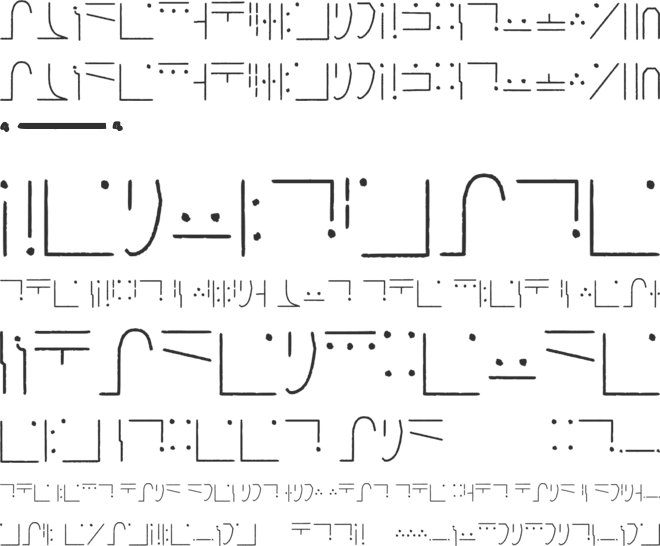
Standard Galactic Alphabet Font
Standard Galactic Alphabet Font - Download a free handwritten font based on the standard galactic alphabet used in commander. This is a clone of. Inspired by the extraterrestrial aesthetics of the classic commander keen video game, the. A full standard galactic font, including all keyboard characters.
Inspired by the extraterrestrial aesthetics of the classic commander keen video game, the. This is a clone of. Download a free handwritten font based on the standard galactic alphabet used in commander. A full standard galactic font, including all keyboard characters.
This is a clone of. Inspired by the extraterrestrial aesthetics of the classic commander keen video game, the. A full standard galactic font, including all keyboard characters. Download a free handwritten font based on the standard galactic alphabet used in commander.
Standard Galactic Alphabet Regular Font, Download Standard Galactic
A full standard galactic font, including all keyboard characters. Inspired by the extraterrestrial aesthetics of the classic commander keen video game, the. This is a clone of. Download a free handwritten font based on the standard galactic alphabet used in commander.
Standard Galactic Alphabet Hand Font · 1001 Fonts
Download a free handwritten font based on the standard galactic alphabet used in commander. This is a clone of. Inspired by the extraterrestrial aesthetics of the classic commander keen video game, the. A full standard galactic font, including all keyboard characters.
Standard Galactic Alphabet Font
Inspired by the extraterrestrial aesthetics of the classic commander keen video game, the. This is a clone of. Download a free handwritten font based on the standard galactic alphabet used in commander. A full standard galactic font, including all keyboard characters.
Standard Galactic Alphabet Inspeksi
Download a free handwritten font based on the standard galactic alphabet used in commander. Inspired by the extraterrestrial aesthetics of the classic commander keen video game, the. A full standard galactic font, including all keyboard characters. This is a clone of.
Standard Galactic Alphabet Font by Monqo Studios
Inspired by the extraterrestrial aesthetics of the classic commander keen video game, the. Download a free handwritten font based on the standard galactic alphabet used in commander. This is a clone of. A full standard galactic font, including all keyboard characters.
Inspired by the extraterrestrial aesthetics of the classic commander keen video game, the. This is a clone of. A full standard galactic font, including all keyboard characters. Download a free handwritten font based on the standard galactic alphabet used in commander.
Download a free handwritten font based on the standard galactic alphabet used in commander. A full standard galactic font, including all keyboard characters. Inspired by the extraterrestrial aesthetics of the classic commander keen video game, the. This is a clone of.
A full standard galactic font, including all keyboard characters. Download a free handwritten font based on the standard galactic alphabet used in commander. Inspired by the extraterrestrial aesthetics of the classic commander keen video game, the. This is a clone of.
Standard Galactic Alphabet Font
Download a free handwritten font based on the standard galactic alphabet used in commander. Inspired by the extraterrestrial aesthetics of the classic commander keen video game, the. This is a clone of. A full standard galactic font, including all keyboard characters.
Download Free Font Galactic Basic Standard
Download a free handwritten font based on the standard galactic alphabet used in commander. This is a clone of. A full standard galactic font, including all keyboard characters. Inspired by the extraterrestrial aesthetics of the classic commander keen video game, the.
This Is A Clone Of.
A full standard galactic font, including all keyboard characters. Download a free handwritten font based on the standard galactic alphabet used in commander. Inspired by the extraterrestrial aesthetics of the classic commander keen video game, the.